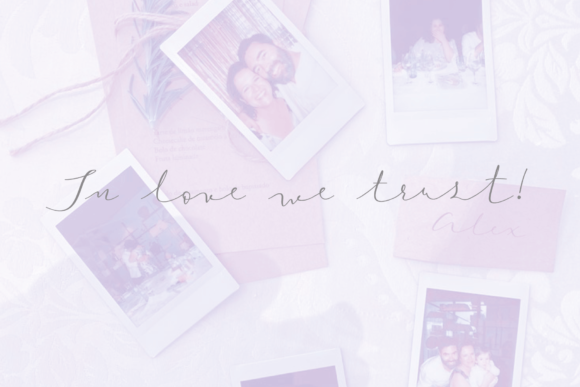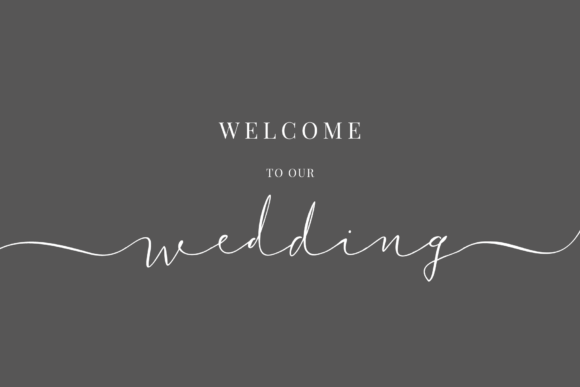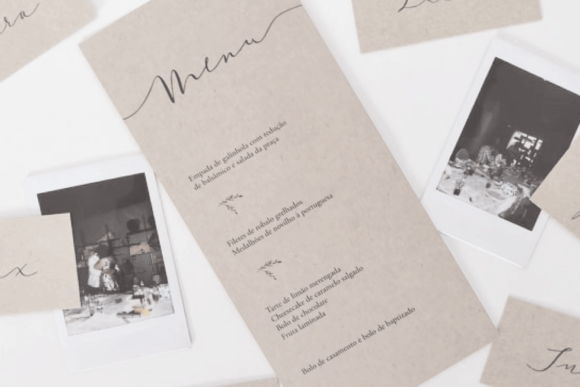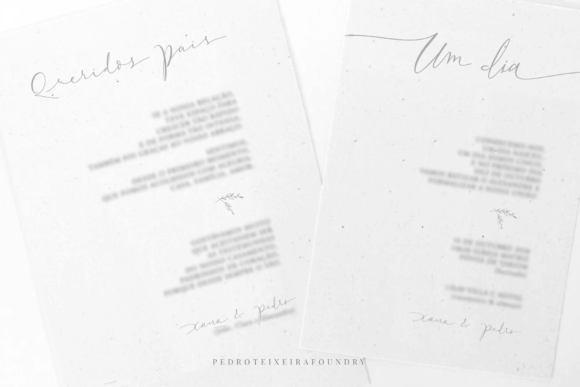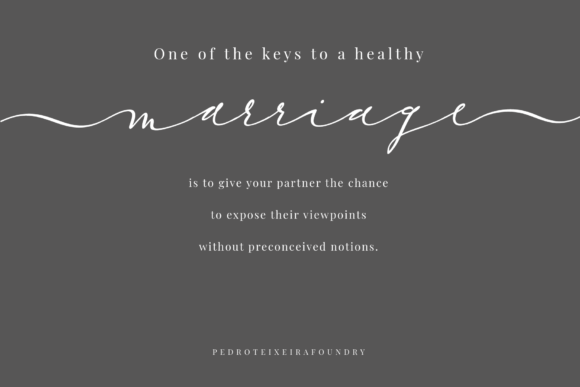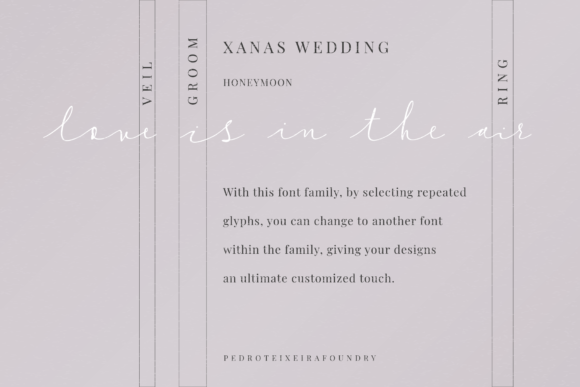
Xanas Wedding Font
About Xanas Wedding Font
Xanas Wedding is a beautiful and refined script font. It has a classy, elegant and modern look that can be used for logos, branding, invitations, stationery, wedding designs, social media posts, and much more!